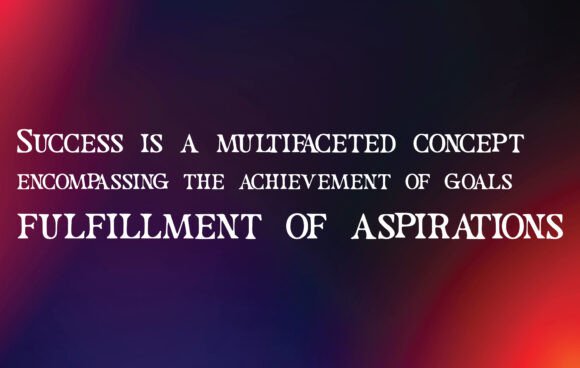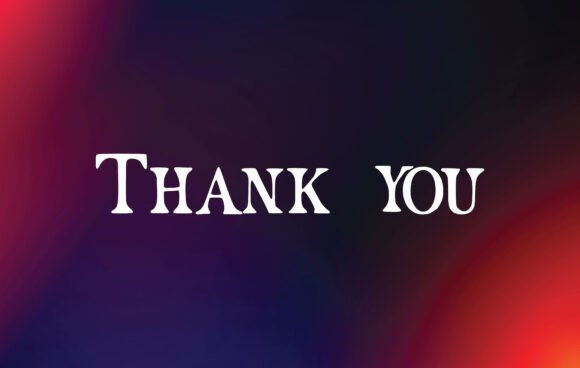
Introduction to Nigella Font
Have you ever been in the middle of a design project, staring at a blank page, and suddenly, the perfect font pops into your mind? That’s exactly what happened to me when I discovered the Nigella Font. It’s a game-changer, and I’m excited to share its charm with you.
As a designer, I know how crucial it is to have a reliable design resource that can elevate your creative project. The Nigella Font fits the bill, offering a perfect blend of style and versatility that makes it a go-to favorite in any font collection. With its high-quality design and transparent background, this font is sure to impress, whether you’re designing magazine headlines, social media posts, or branding materials.
Key Features of Nigella Font
- High-quality design: Nigella Font is a premium font designed for creative projects, offering a sophisticated and elegant look.
- Unique characteristics: Nigella Font features a unique blend of modern and vintage elements, making it perfect for creative projects that require a touch of sophistication.
Honest Review: Nigella Font
I recently came across the Nigella Font, and I must say it’s been a great addition to my design resources. This beautiful font is perfect for any creative project that requires a touch of elegance and sophistication.
- High-quality design: The Nigella Font is well-crafted and boasts a clear, readable typeface that’s ideal for both print and digital media.
- ⚠️ Limited font styles: The Nigella Font comes in a limited number of styles, which might not be suitable for projects that require a wide range of font options.
- ⚠️ Not ideal for large text: While the font looks great for smaller text sizes, it can become difficult to read when used for large text.
Overall, the Nigella Font is a great addition to any designer’s toolkit. While it may have some limitations, its high-quality design, free download, and transparent background make it an excellent choice for creative projects. I’ve already started using it in several of my designs, and I’m sure you’ll find it just as useful.
The Nigella Font is commonly used for creating titles, headings, and captions in design projects. Its high-quality and transparent background make it an excellent choice for a wide range of creative projects, from graphic design to digital marketing.